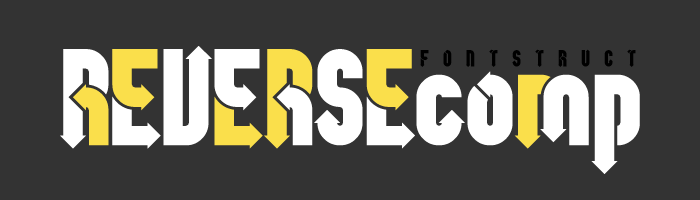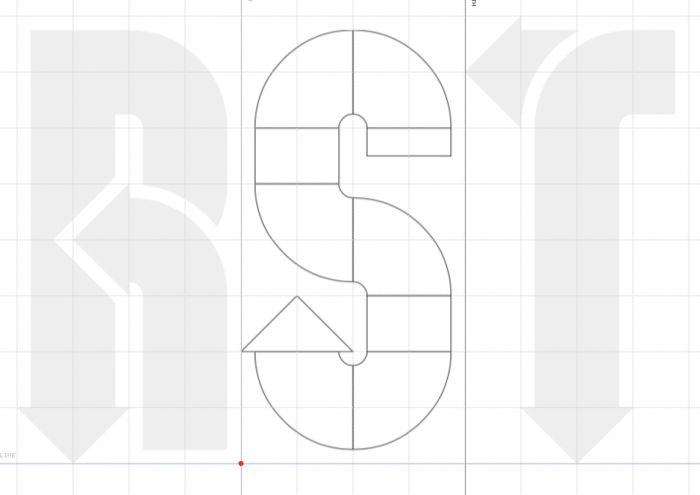
AT Esrever
by kassymkulov
Entry for the Reversecomp. It's based on the theme of counterclockwise (anticlockwise) direction that is represented by an arrow. Also, Esrever is Reverse written backwards.
Oh. Brilliant.
The Y Z and 7 are a bit awkward.
A doubly clever take on the word 'Reverse'. A very creative thought and work!
@thalamic: I'll try to figure out some nicer versions.
Esreverse is a palindrome
What bricks are in the font?
Bricks are pretty simple, just used the connecting bricks. Letters like A, R are a little complicated though:
2x2 filters.
How many unique bricks?
Yeah, 2x2 filters and I actually suggest everybody who's not using bezier curves to use 2x2 filters. That way, your fontstruct space flexibility doubles if I may say so.
And the other question you're asking is well, it depends, I used around 15 unique bricks here and depending on your skill you may increase or decrease it, varies from user to user.
I don't think this answers will help you much, and besides it'd be much easier for me to make this fontstruction clonable so as to avoid explaining the unnecessary details ) But it won't help you. The best thing to do for you is trying to make it yourself.
Great idea and excellent execution and samples. 2x2 is definitely the way to go. It more than doubles space flexibilty now, because it allows for bricks to be place in adjacent cells and to be nudged into place.
Precious like a jewel! I´m with four. Congrats, compañero, 10/10 & fav.
Great concept and perfect execution. The letters - made of arrows - look quite natural, and the text is easy to read. Very nice demos. 10/10
Congratulations on our Members' Favourite FontStruction :) A set of arrows that quietly pointed to this great success.
Can you make one of the arrows point the other wat in the = glyph?
Nicee! A simple yet strong approach. Never realized that it can be this effective and efficient. Congrats!
I find the angles, overlaps, and directional arrows in this font so interesting. And with all the tight work and everything, the legibility of every character is still there. Not easy to do. A funly functional font, and the 'reverse'(d) font is clever too!